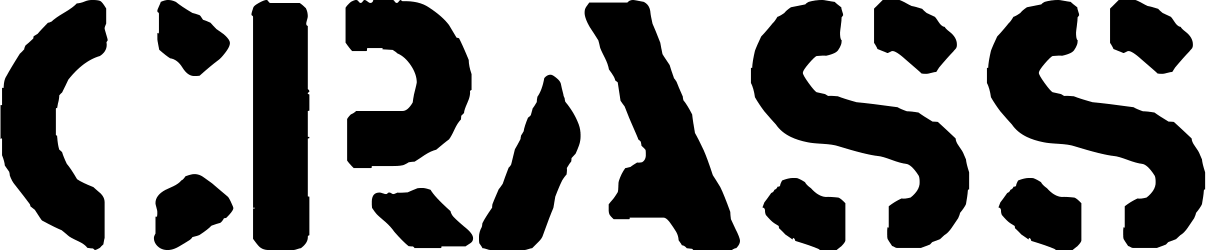
Crass Font
Crass is the military font that emerged with a bold and determined design to make your typography stand out. Its letters have no ink in some parts. Despite the lack of lowercase letters, this industrial stencil font can preserve its worth in many situations, such as military displays, movie titles, clothing, posters, and TV shows when you need your design placed in a disciplined and sturdy arrangement.